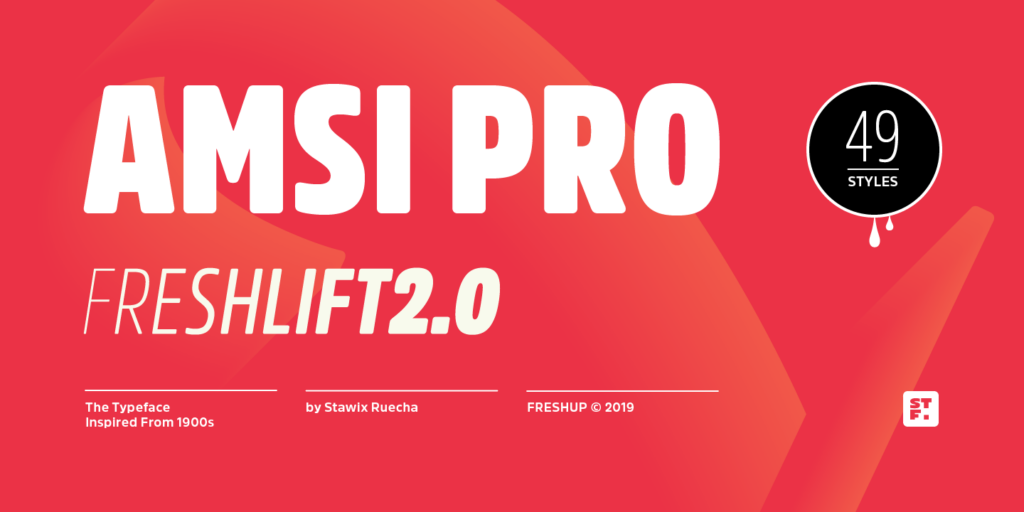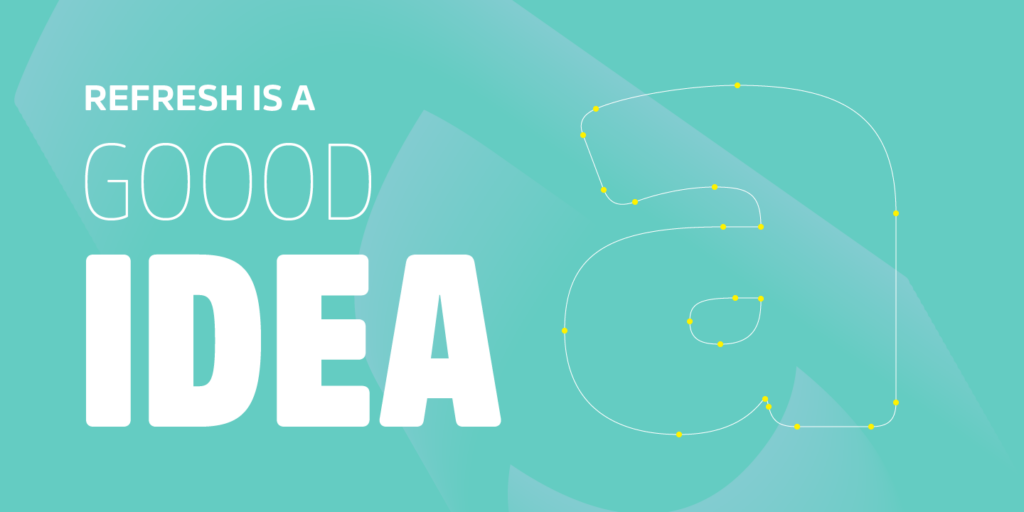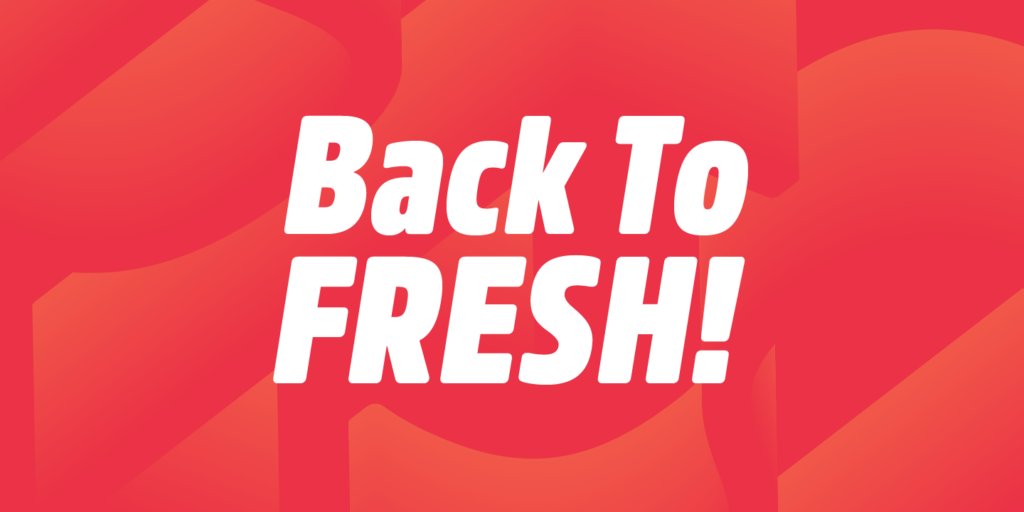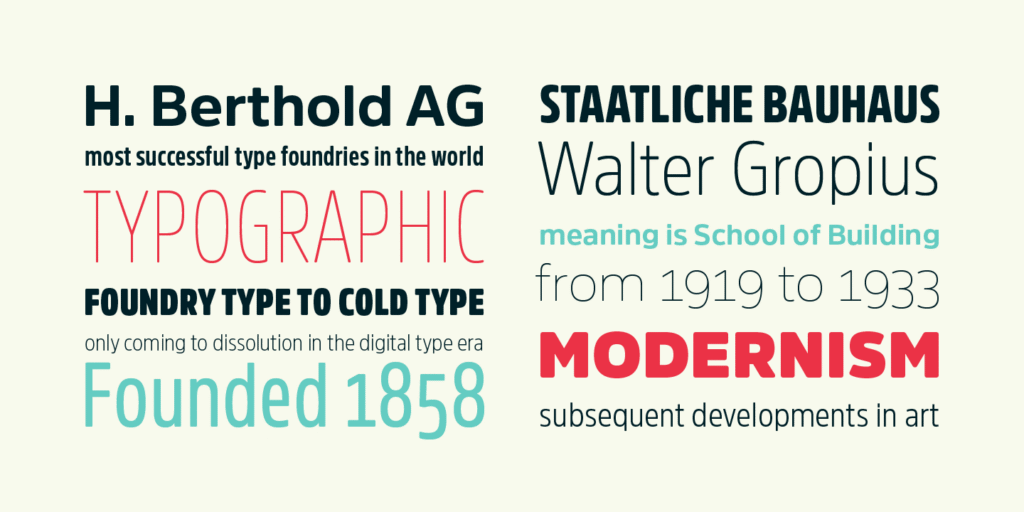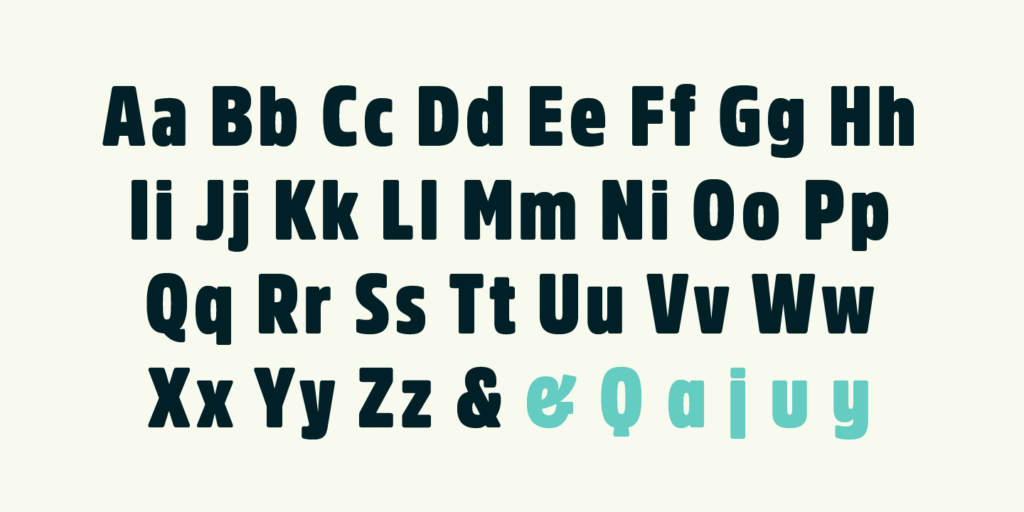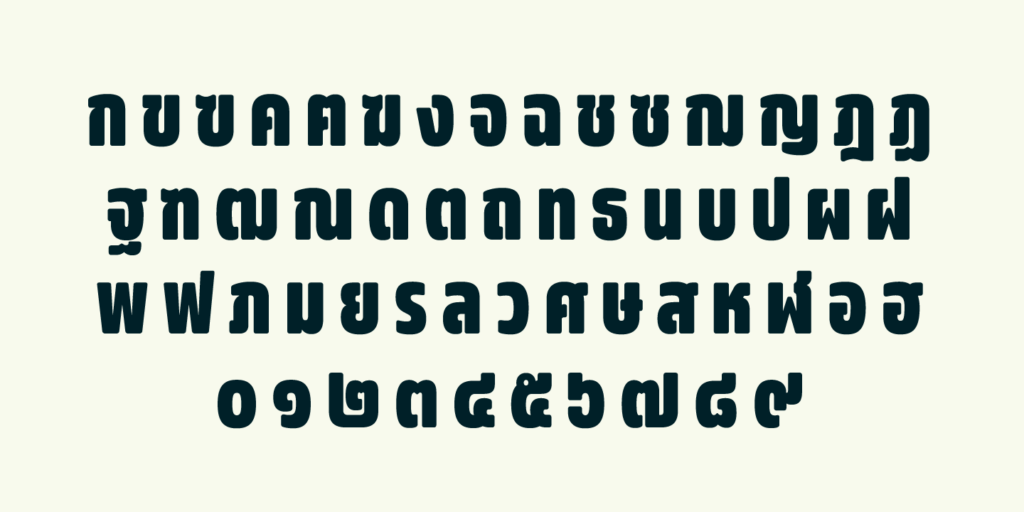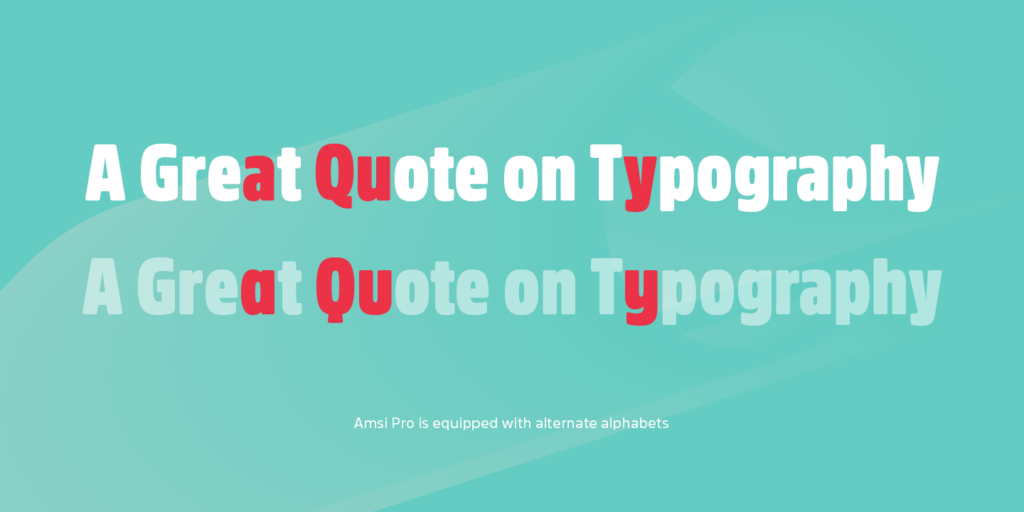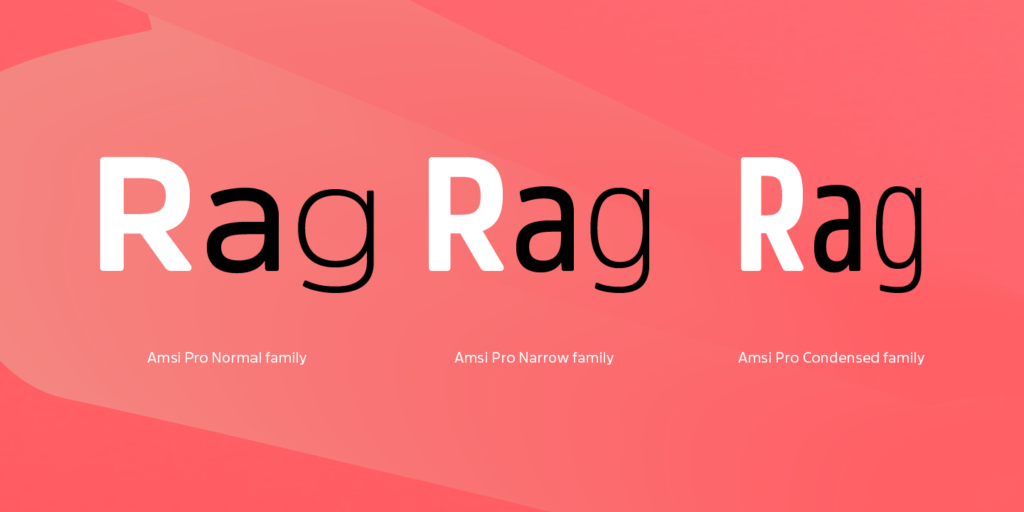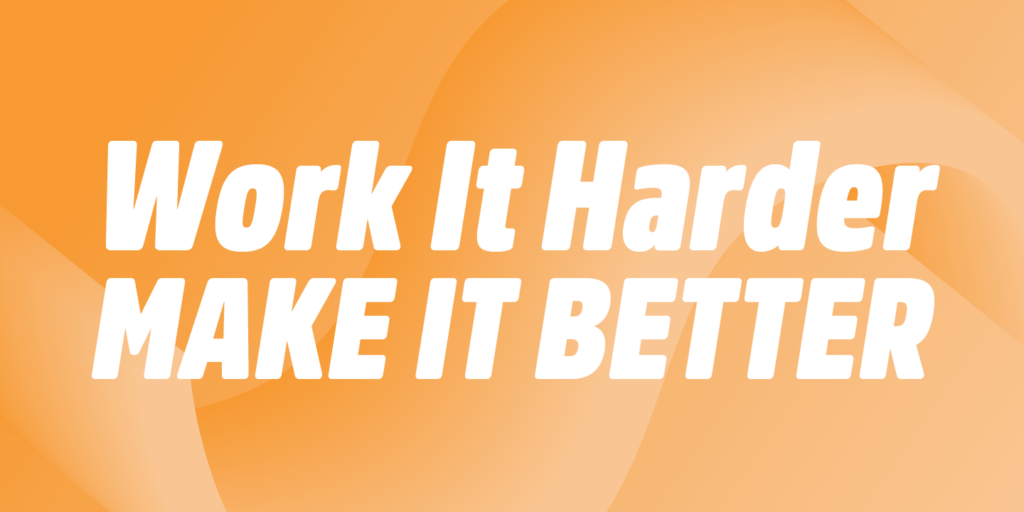
Amsi Pro — STAWIX Foundry
Designer
Stawix Ruecha
Year
2015
Amsi has been designed to equipped with three different widths; Normal, Narrow and Condensed, addition to expanding weights to support various usabilities ranging from Thin, XLight, Light, Regular, SemiBold, Bold, Black and Heavy. Which makes Amsi along with a numerous features support the creativities of the designer from the Font Menu.